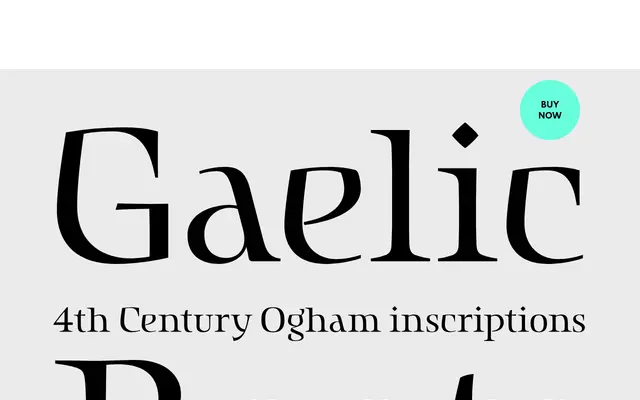
Amulet
A Celtic uncial display face inspired by ancient Irish manuscripts and the Book of Kells, intended for headlines, posters and film titles.
Drawn after a visit to Dublin and a study of manuscript traditions at Trinity College, Amulet takes the uncial letterform as its basis and inflects it with Gaelic calligraphic character. The single Medium weight suits large-scale headline use where its scribal, monastic quality can read clearly. The foundry notes an almost Arabic flavour in certain letterforms, giving the face an ambiguity that extends its range beyond strictly Celtic contexts.
Amulet is an uncial display typeface with Celtic calligraphic roots, drawing on the Gaelic manuscript tradition rather than any conventional serif or sans-serif structure.